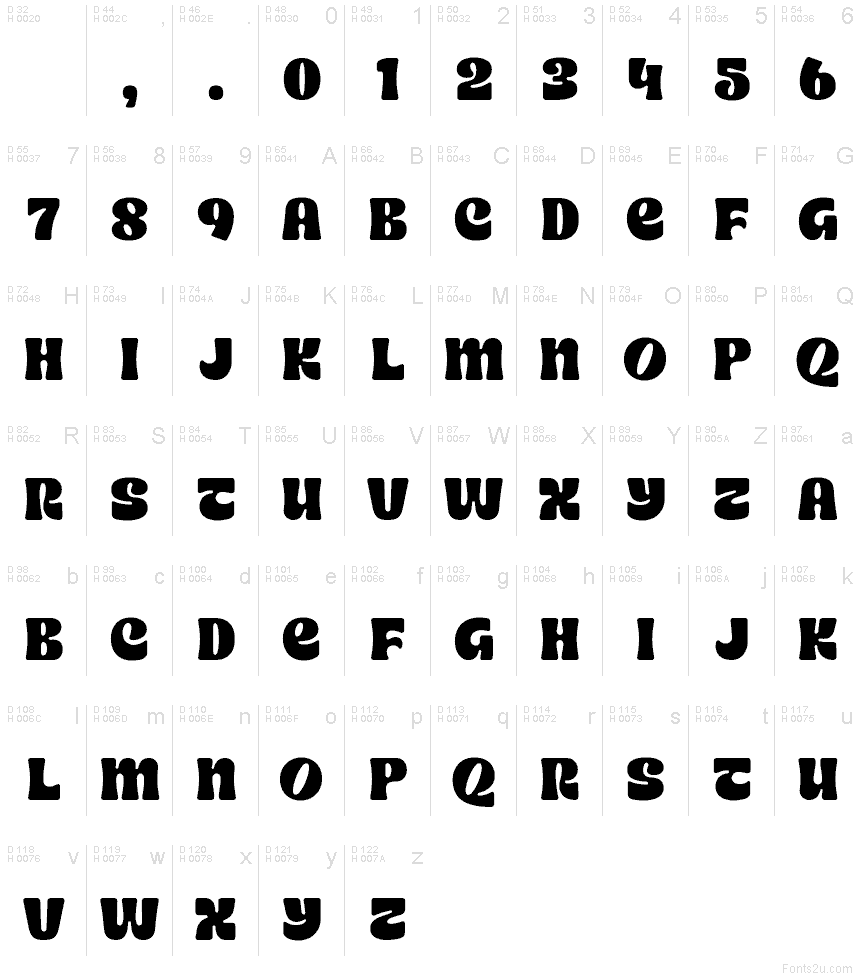
Retro Star Regular
Retro Star font by Genetypeco is a free retro display font that leans into bold, pillowy curves and inky, high-contrast shapes. Its chunky silhouettes feel like lava-lamp letters—soft edges, generous counters, and a rhythmic bounce that pulls the eye across a headline. The result is loud, friendly, and unmistakably 70s without feeling costume-y.
This free font shines on event posters, festival merch, groovy logo marks, vinyl cover art, cafe signage, packaging, and bold social graphics. Using Retro Star at large sizes lets those bubbly forms breathe; pair it with a clean, narrow grotesk for small copy to keep layouts crisp. Retro Star gives you instant throwback warmth with modern punch.